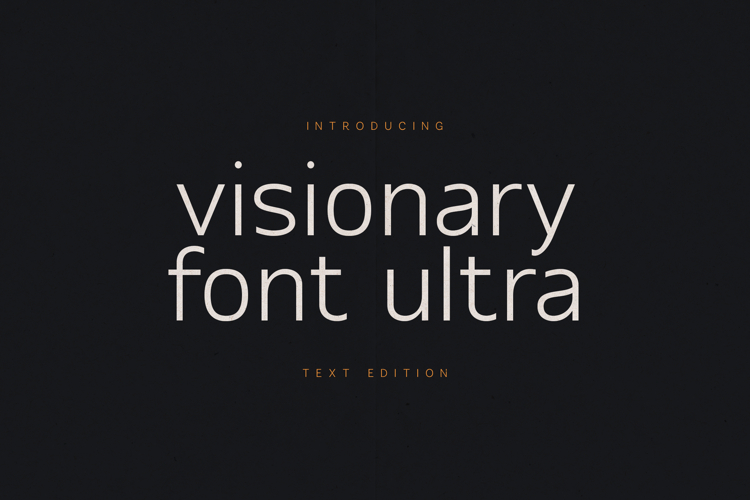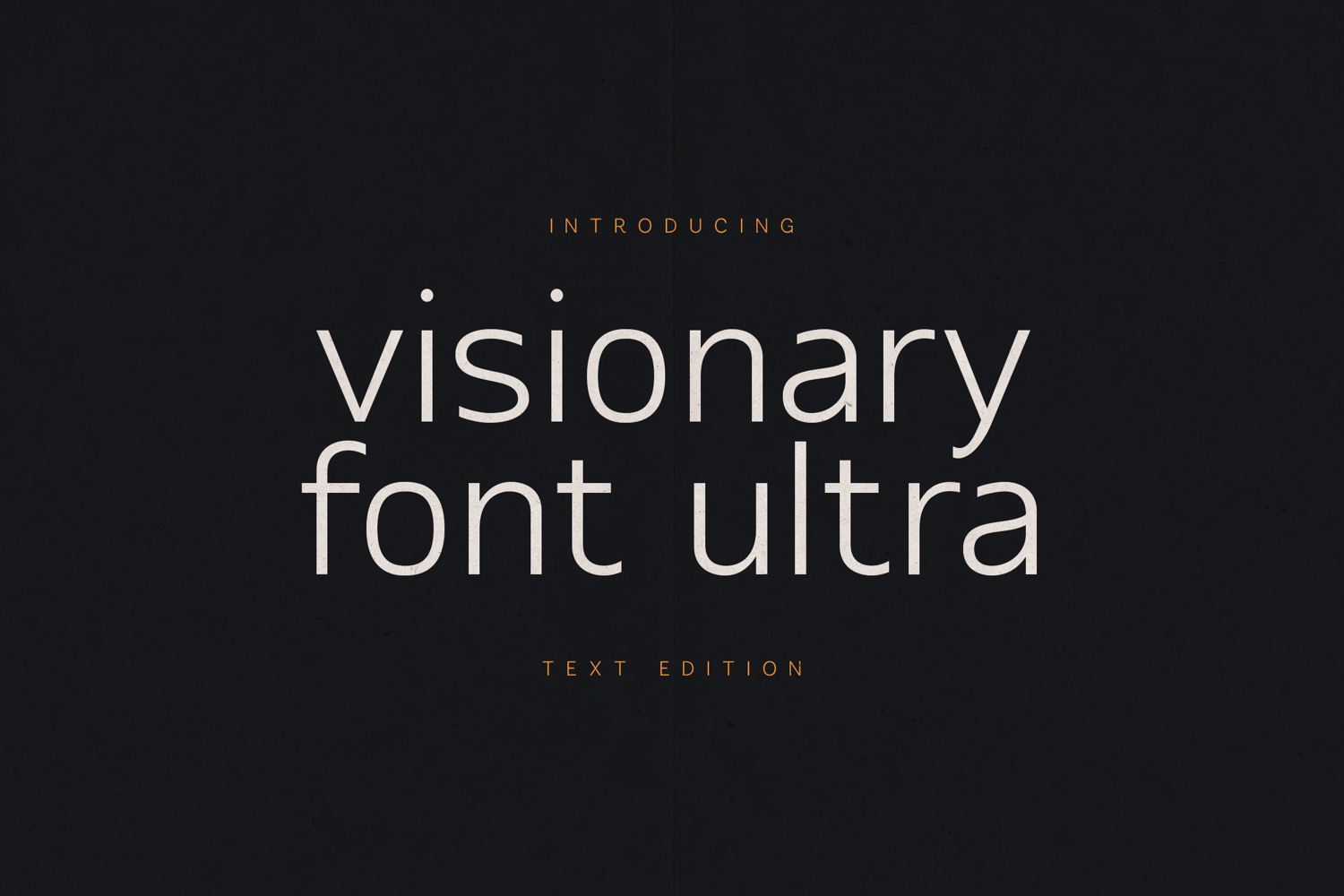
Visionary Font Ultra Text Edition Modern Sans Serif Font
Visionary Font Ultra – Text Edition is a clean modern sans serif font designed for clarity, readability, and contemporary digital typography. With balanced proportions, smooth curves, and a neutral aesthetic, this font is ideal for body text, UI design, websites, branding systems, editorial layouts, presentations, and long-form content.
The Text Edition focuses on comfort and legibility while maintaining a refined, modern character. Its versatile structure makes it perfect for design systems where consistency, usability, and elegance are essential across print and digital platforms.
Visionary Font Ultra – Text Edition includes a full character set with extensive multilingual support, numerals, punctuation, and special symbols, making it suitable for professional and creative applications alike.
Visionary Font Ultra – Text Edition is built for designers who value precision, readability, and modern simplicity in typography.